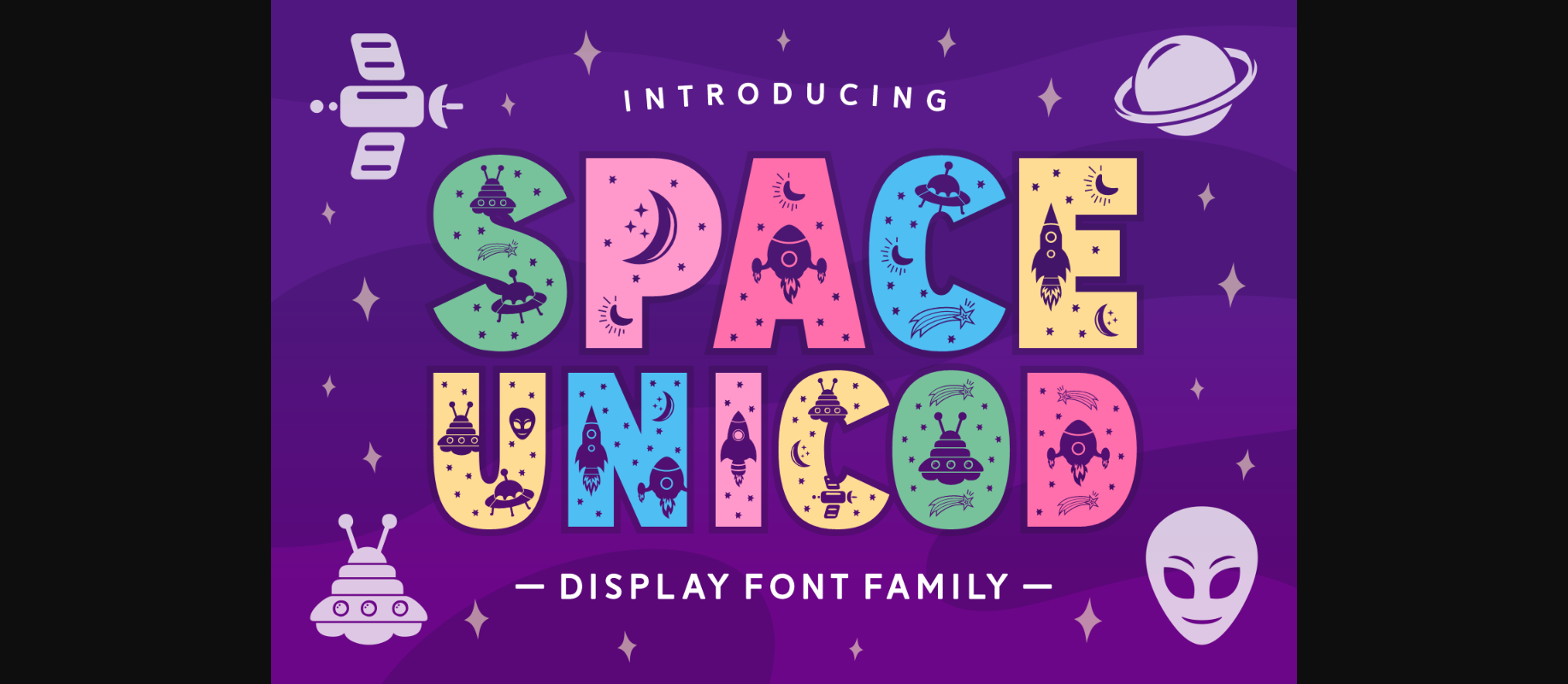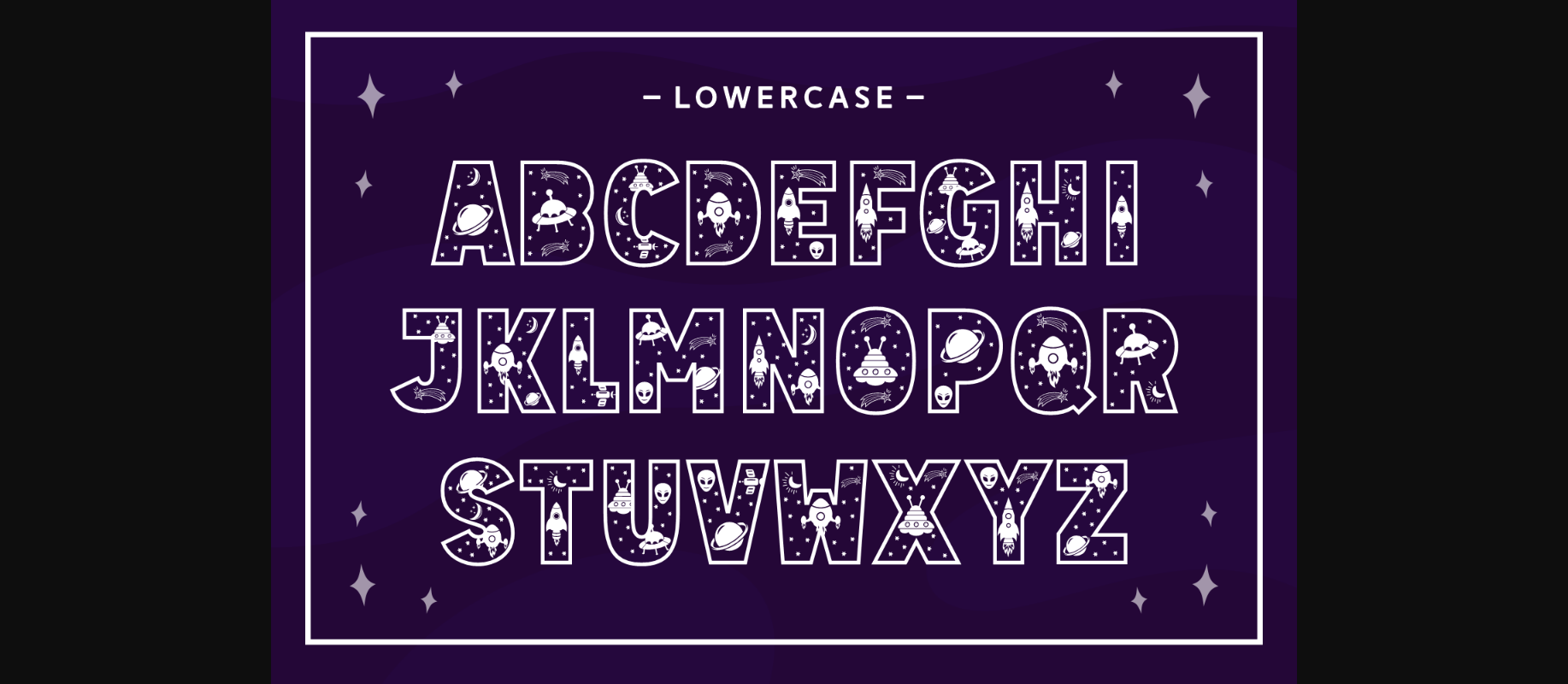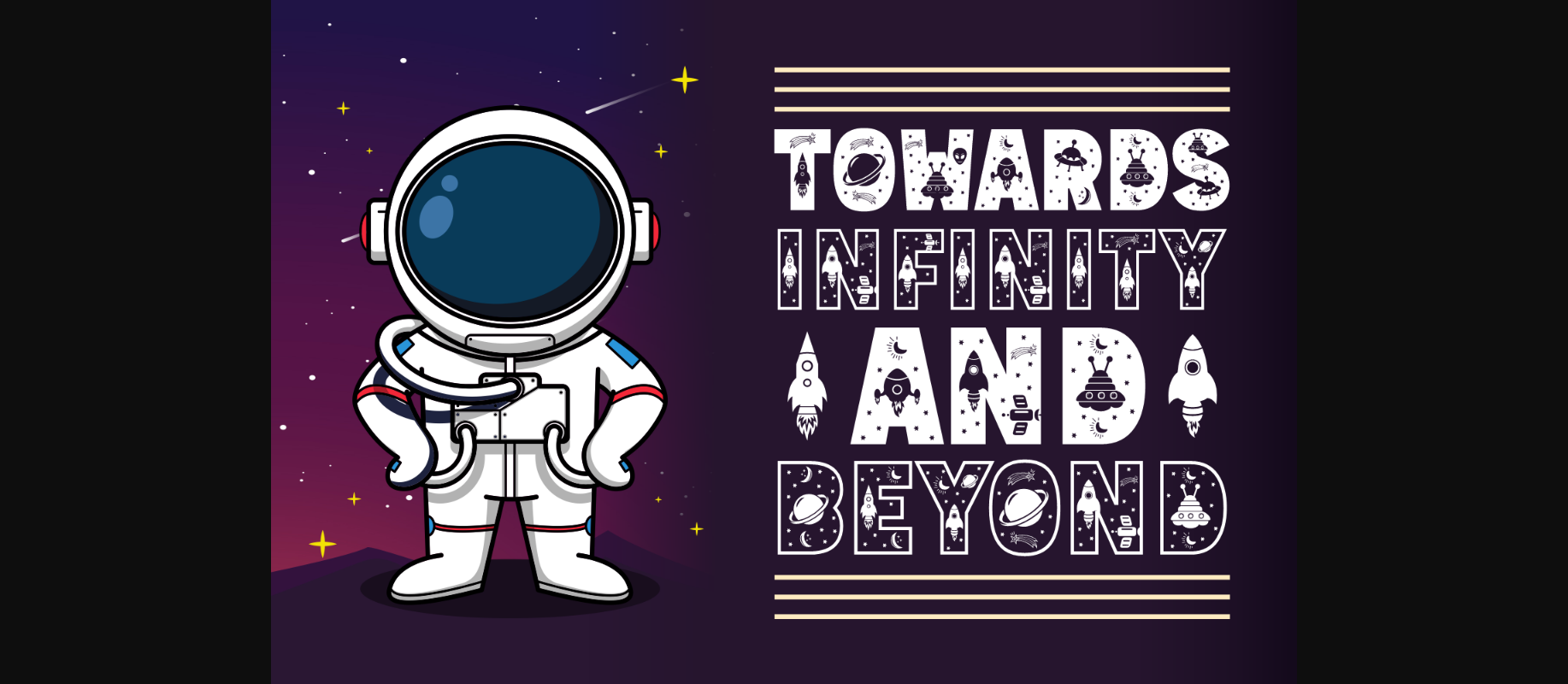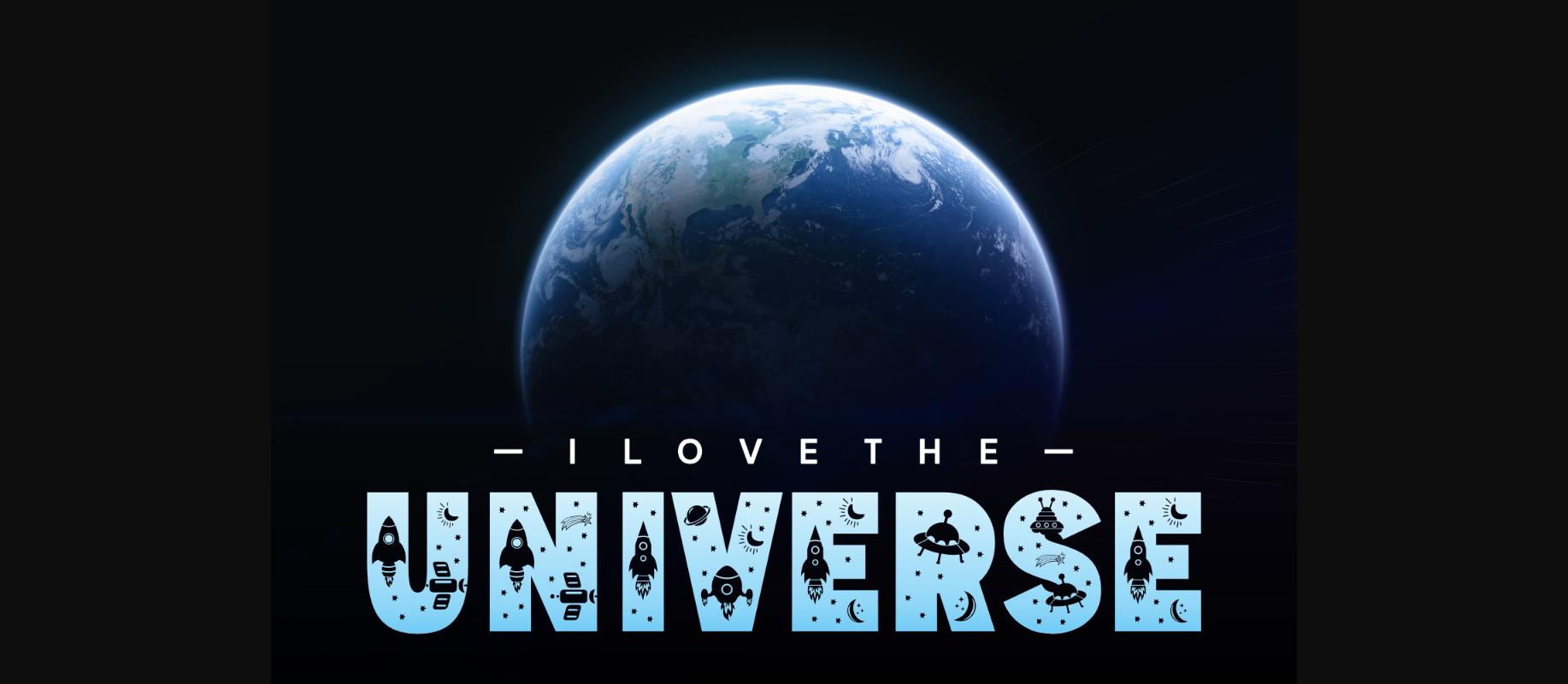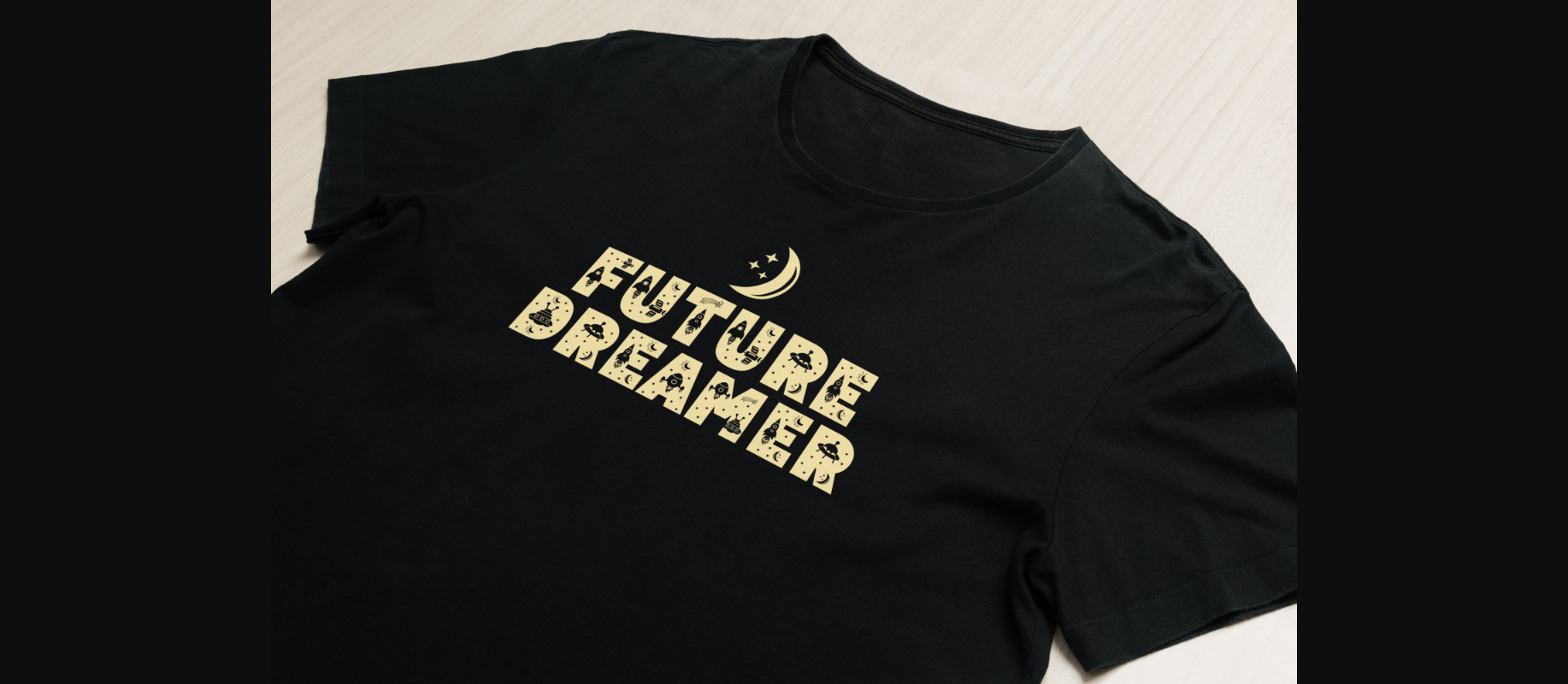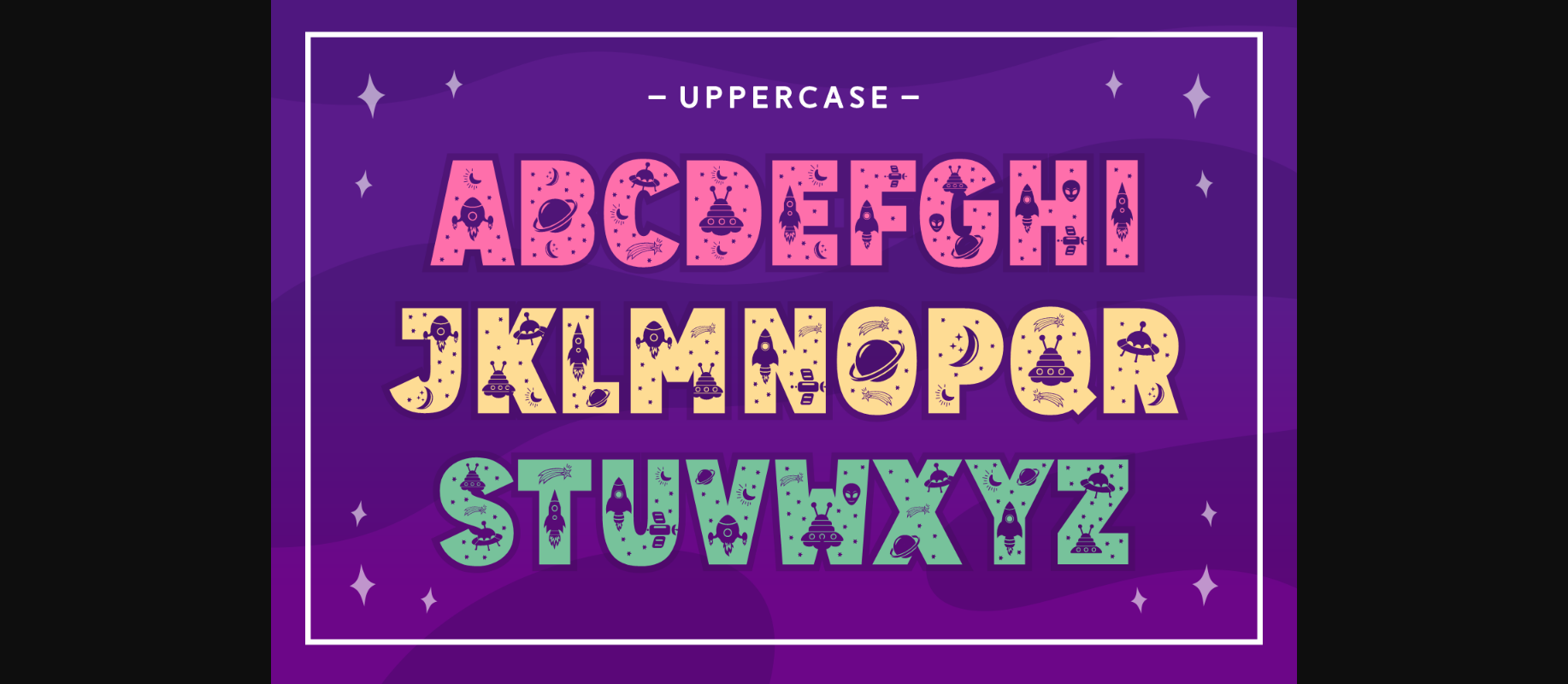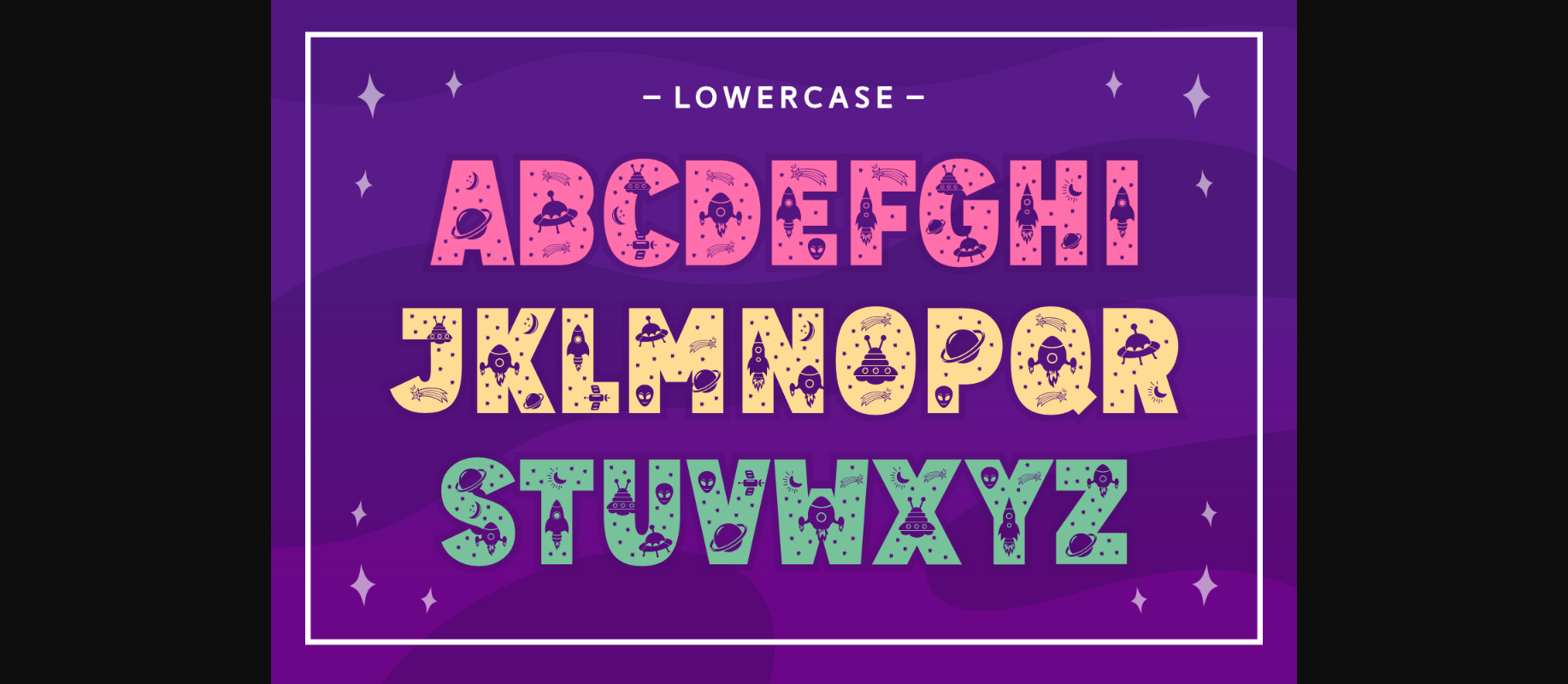
About Space Unicod Font
Space Unicod is a unique and attractive decorative typeface featuring cute and tiny space elements inside the letters. Its whimsical and playful appearance is perfect for adding a touch of fun to any project, from invitations to posters. Get ready to blast off and add some intergalactic charm to your work with this font!